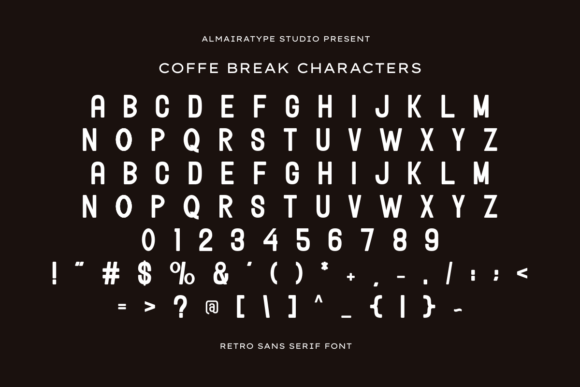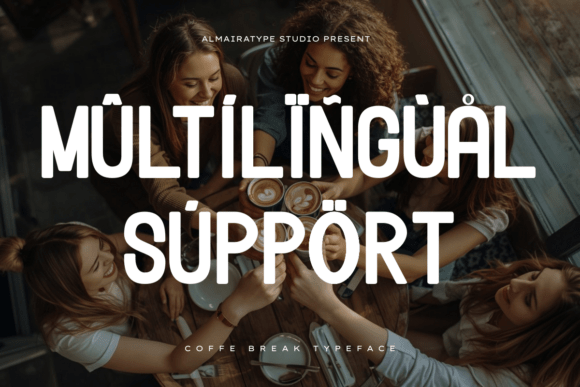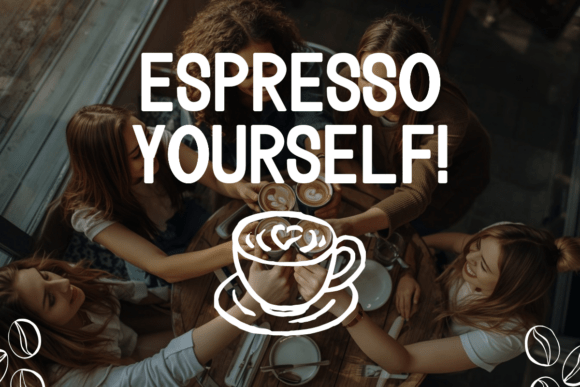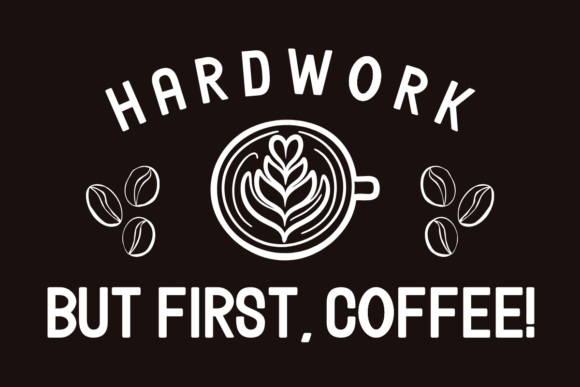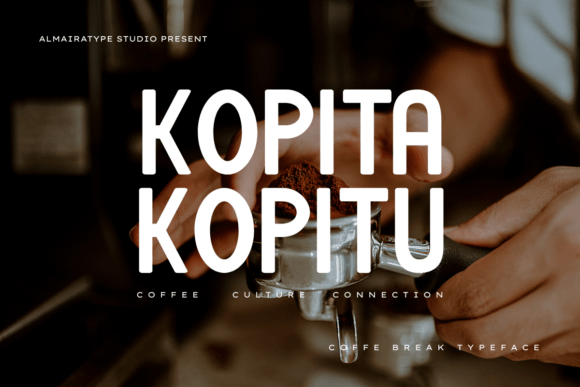
Coffee Break Font: A Retro Sans Serif for Timeless Designs
Are you searching for a font that embodies the warmth and nostalgia of a bygone era? Look no further than the Coffee Break font, a retro sans serif typeface that perfectly captures the essence of vintage aesthetics. With its bold, clean lines and slightly rounded corners, this font exudes a friendly yet impactful presence that’s sure to elevate your creative projects.
The Characteristics of Coffee Break Font
Coffee Break is a meticulously designed font that boasts a unique blend of retro charm and modern sophistication. Its key features include:
- Bold, clean lines: The font’s bold lines give it a sturdy, dependable feel that’s perfect for headlines, titles, and emphasis text.
- Slightly rounded corners: The subtle rounding of the font’s corners adds a touch of warmth and approachability, making it ideal for designs that require a friendly tone.
- Uppercase display capabilities: The font’s uppercase letters are showcased in a stunning display of retro flair, perfect for grabbing attention and making a statement.
- Professional look: Despite its playful vibe, Coffee Break is designed to provide a professional look that’s suitable for a wide range of creative projects.
Coffee Break is an incredibly versatile font that’s suitable for a variety of design applications. Whether you’re working on:
- Cozy cafe branding: Create a warm and inviting atmosphere for your cafe or restaurant with Coffee Break’s nostalgic charm.
- Vintage-inspired posters: Add a touch of retro flair to your posters and flyers with this font’s bold, eye-catching design.
- Social media graphics: Stand out on social media with Coffee Break’s unique blend of modern and retro styles.
- Modern editorial layouts: Bring a touch of classic charm to your editorial designs, such as magazines, newspapers, and blogs.
Coffee Break’s “Groovy meets Modern” style makes it an excellent choice for a wide range of design projects, including:
- Logos: Create a bold and memorable logo for your brand with Coffee Break’s unique design.
- Product packaging: Add a touch of retro charm to your product packaging and make it stand out on store shelves.
- Bold headlines: Use Coffee Break to create attention-grabbing headlines that demand attention.
Why Choose Coffee Break Font?
- Timeless design: Coffee Break’s retro charm is timeless, ensuring your designs will remain stylish for years to come.
- Flexibility: This font is suitable for a wide range of design applications, from digital projects to print materials.
- Unique style: Coffee Break’s blend of modern and retro styles sets it apart from other fonts, making it an excellent choice for designers looking to create something distinctive.
| Font Name | Coffe Break Font |
| Author | Almairatype Studio |
In conclusion, Coffee Break font is an exceptional retro sans serif typeface that’s perfect for designers and crafters looking to add a touch of classic charm to their digital and print creations. With its bold, clean lines, slightly rounded corners, and versatile design, this font is sure to become a staple in your design toolkit. So why wait? Add Coffee Break to your collection today and start creating timeless designs that will leave a lasting impression!